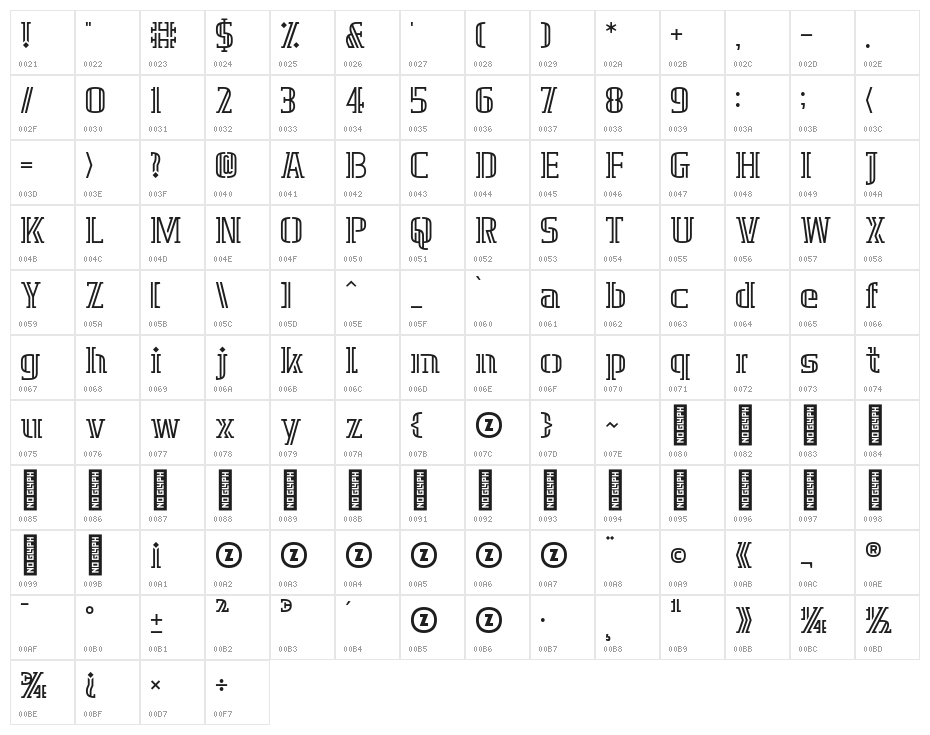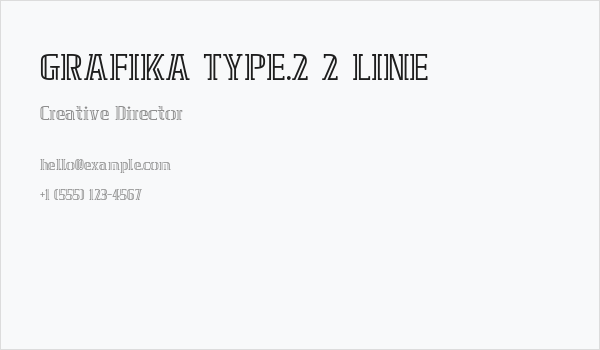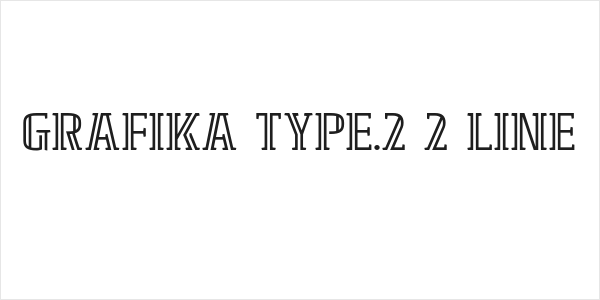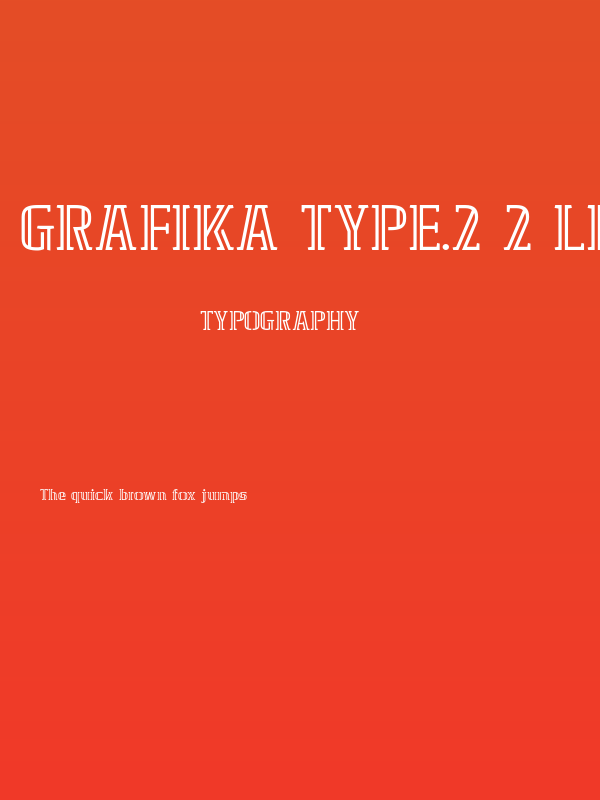
GRAFIKA TYPE.2 2 LINE Font
GRAFIKA TYPE.2 2 LINE Description
This font features a modern and geometric design with a distinct two-line style that gives it a unique and sophisticated appearance. The uppercase and lowercase letters are characterized by their clean lines and angular shapes, creating a sense of precision and clarity. The numerals are equally well-crafted, maintaining the same geometric aesthetic. Special characters are designed with the same attention to detail, ensuring consistency across the entire typeface. The overall look is both contemporary and versatile, making it suitable for a variety of design applications.